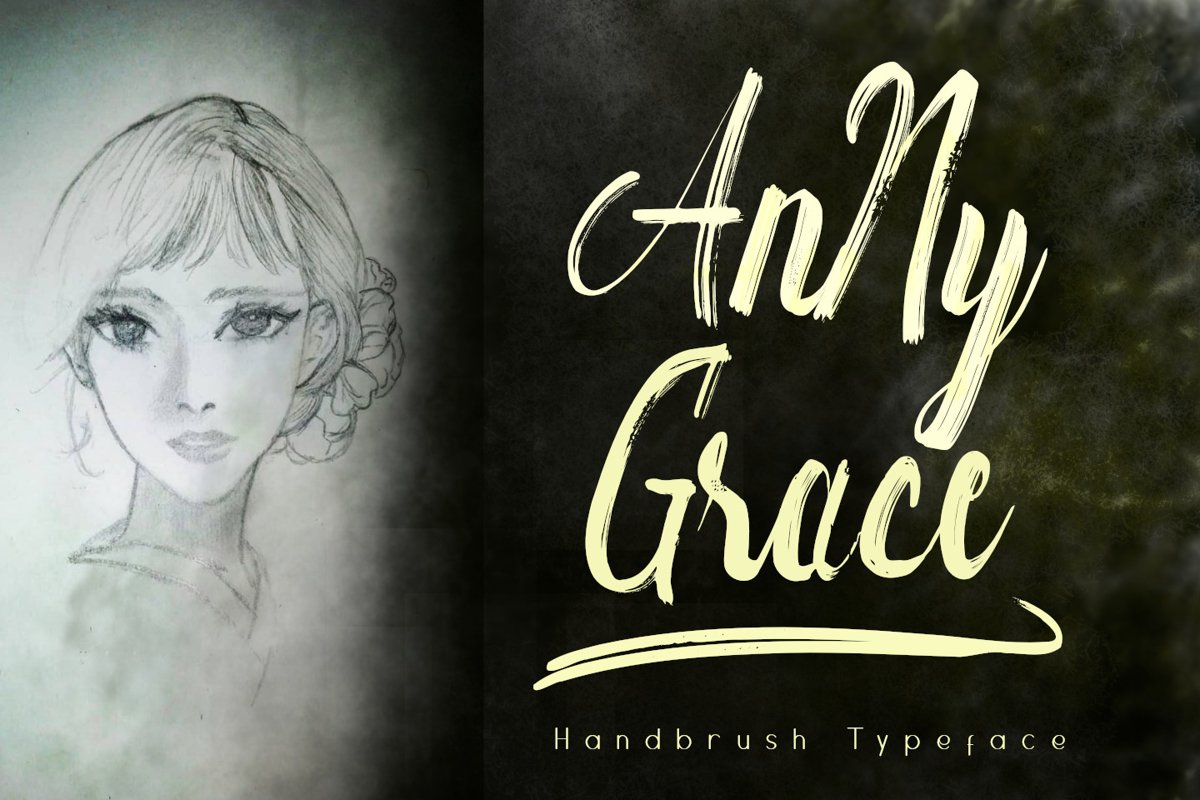
Anny Grace Handbrush Typeface
Anny Grace is a natural hand brush script font with texture. use it for your special creative grunge or vintage modern design. it is support multilingual with complete punctuation. also contain with many grunge texture swash in alternate opentype.